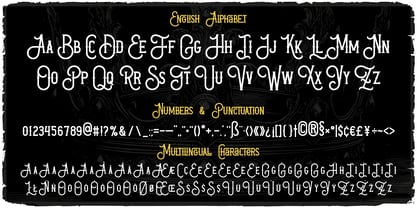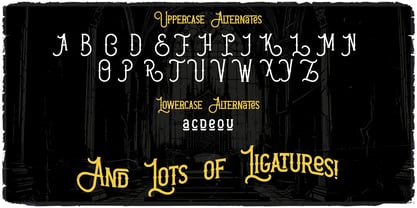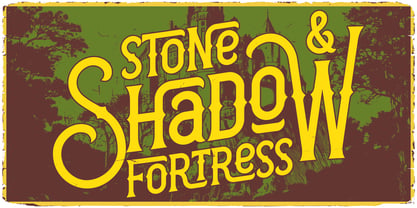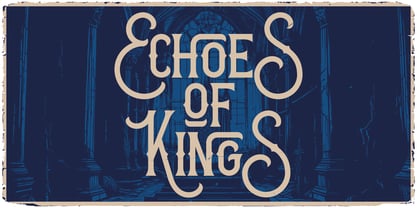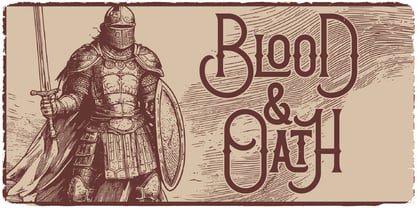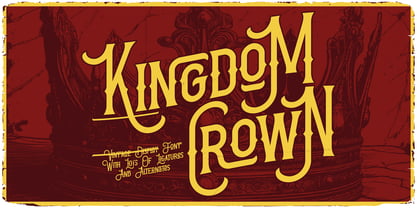
Kingdom Crown
Die Schriftfamilie Kingdom Crown wurde von Oleg Voznyy entworfen und von Vozzy veröffentlicht. Kingdom Crown enthält 1 Stile. Mehr über diese Familie
Introducing the original display font "Kingdom Crown" – a handcrafted typeface full of personality and charm. It includes extended characters, punctuation, full multilingual support, as well as a rich selection of alternates and ligatures to give your text extra style and flexibility. Whether you're working on posters, flyers, branding, or T-shirt designs, this font will make your message stand out. Every letter was carefully drawn by hand to achieve a unique and expressive look. "Kingdom Crown" is perfect for anyone who wants their design to feel striking, custom, and creative.